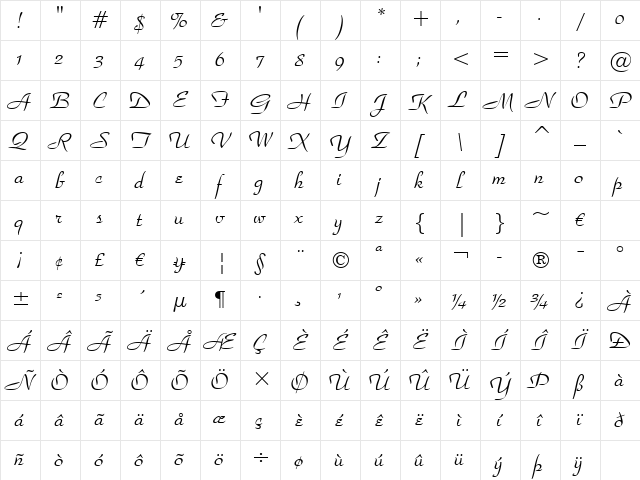
Complete ParkAvenue BT Regular glyph index. Displaying only characters natively supported by ParkAvenue BT Regular font.
ParkAvenue BT is a composed and adaptable typeface that performs quietly and consistently across a wide range of design contexts.